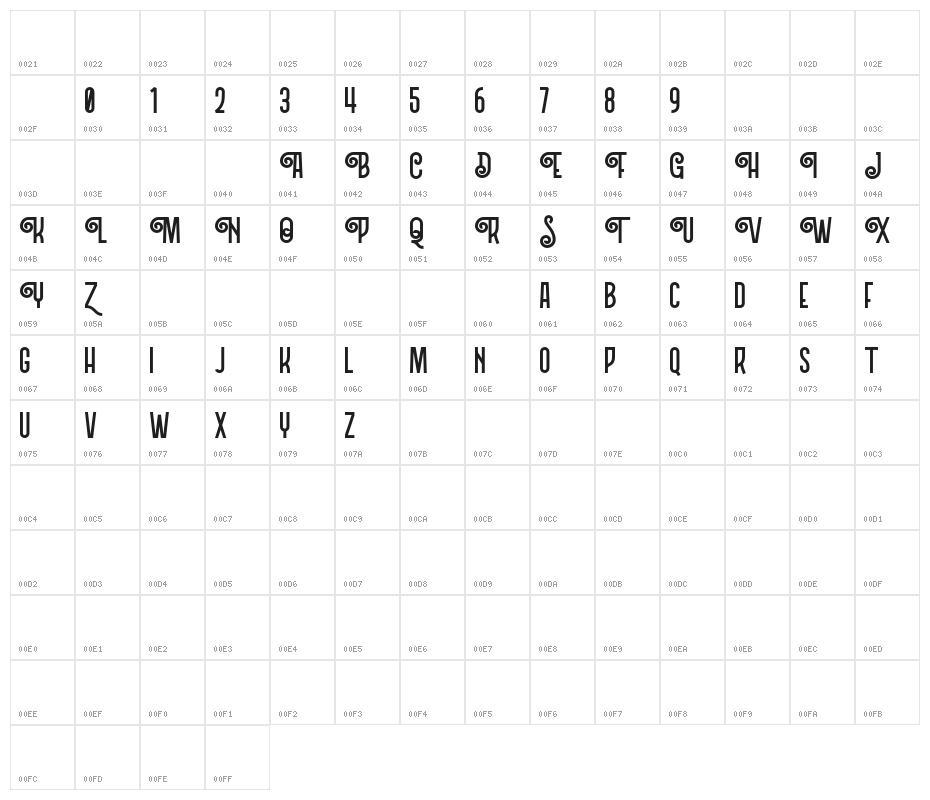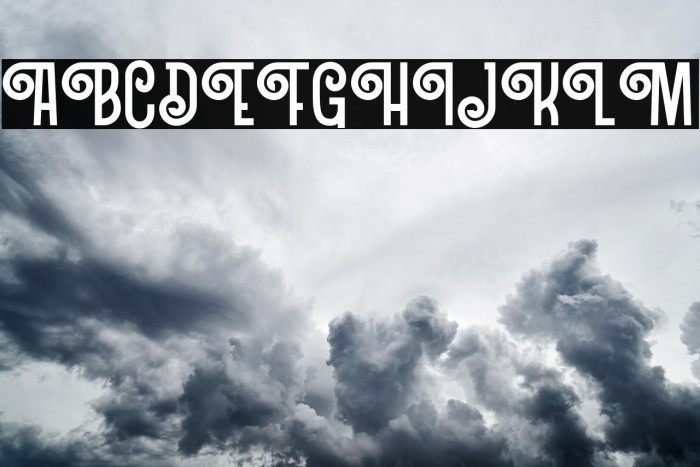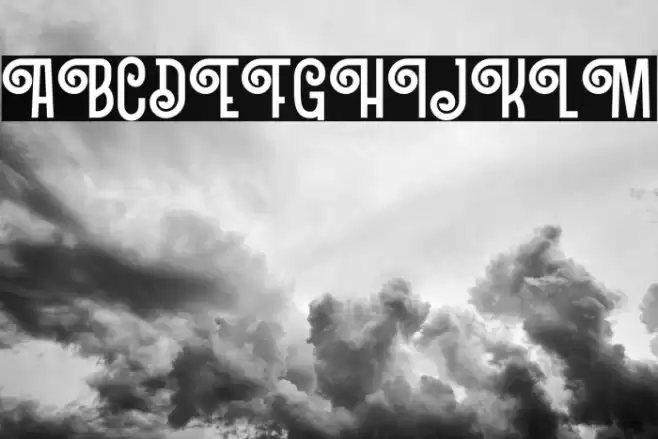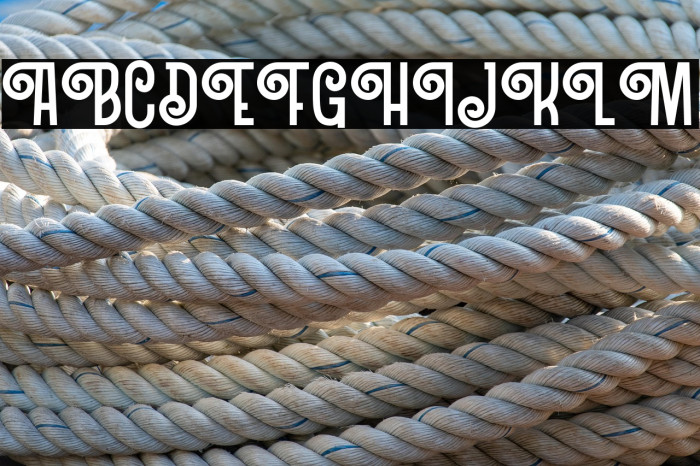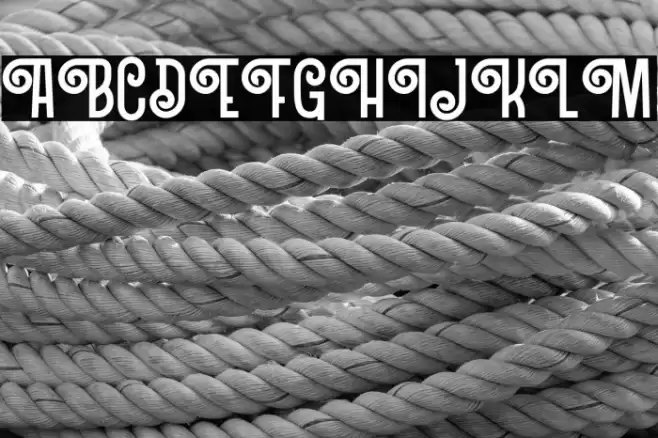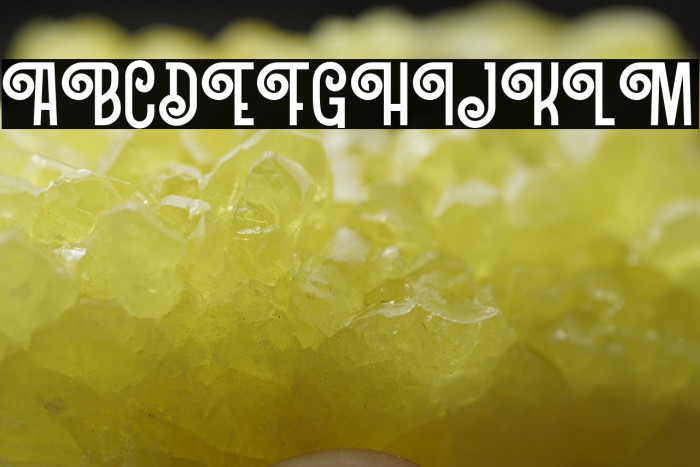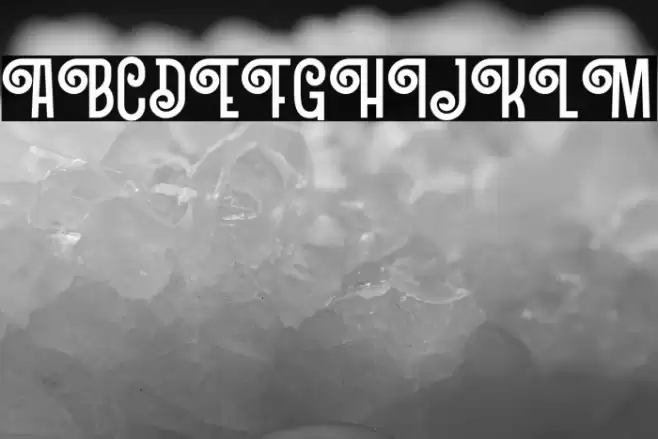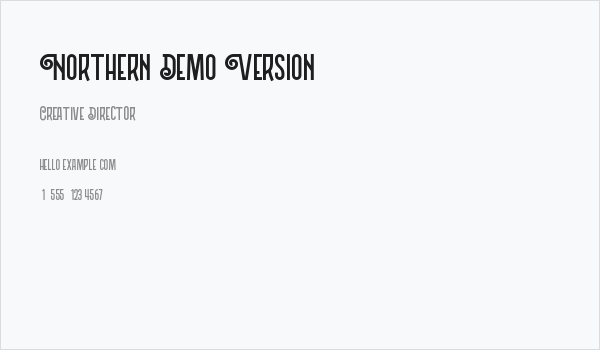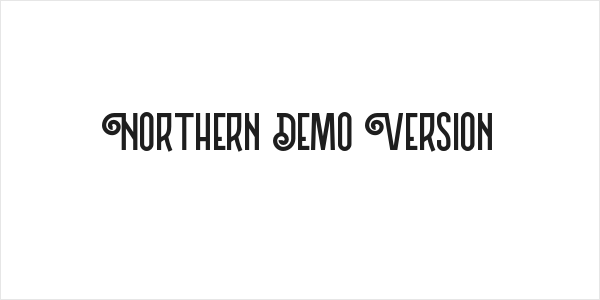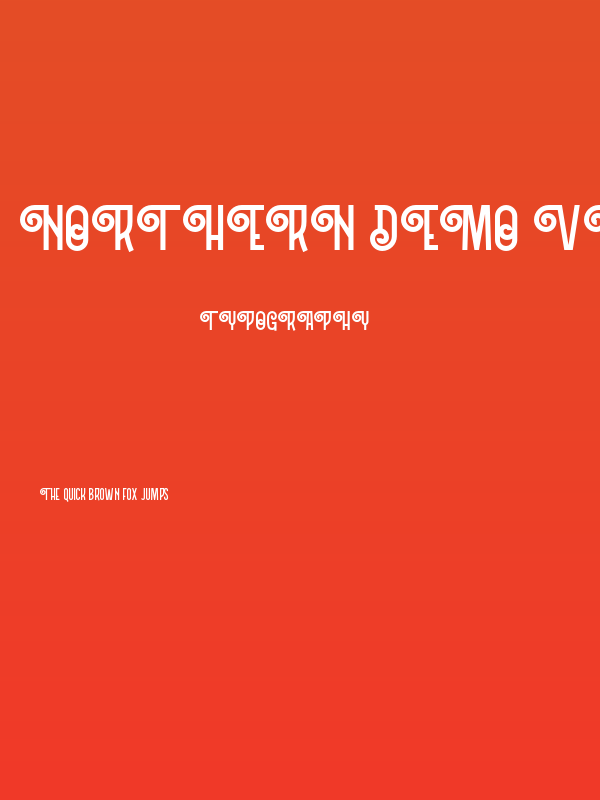
Northern Demo Version Font
Northern Demo Version Description
This font presents a unique blend of decorative and modern styles. The uppercase letters feature intricate, swirling designs that add a playful and artistic flair, making them stand out for creative projects. The lowercase letters and numbers maintain a more straightforward, sans-serif appearance, providing a clean and readable contrast to the ornate uppercase. This duality allows for versatile use, from eye-catching headlines to more subdued body text. The font's overall design is both bold and expressive, with a medium contrast in stroke thickness that enhances its visual impact without compromising legibility. The character spacing is normal, ensuring readability across various applications.
| Proposed Projects | Ideal for branding, posters, invitations, and any project requiring a touch of elegance and creativity. |